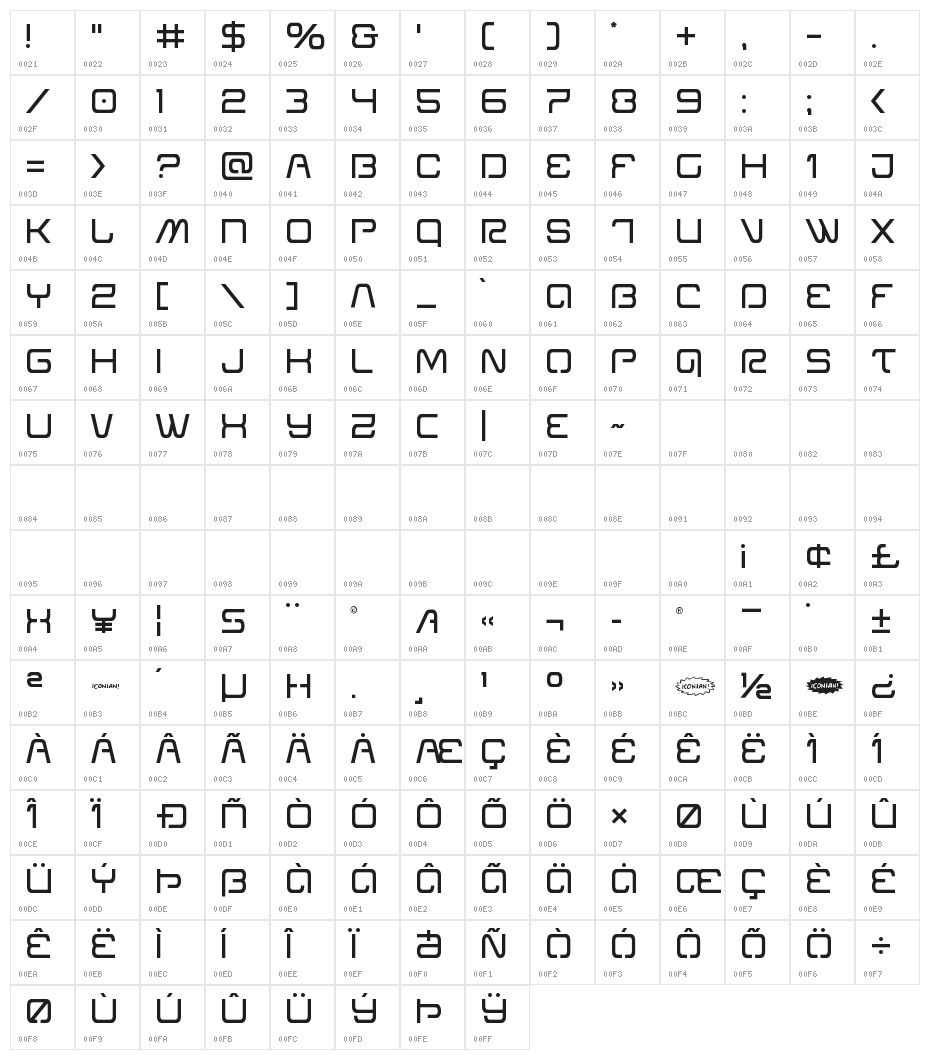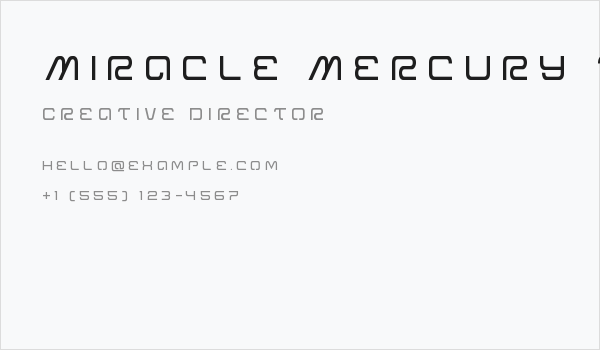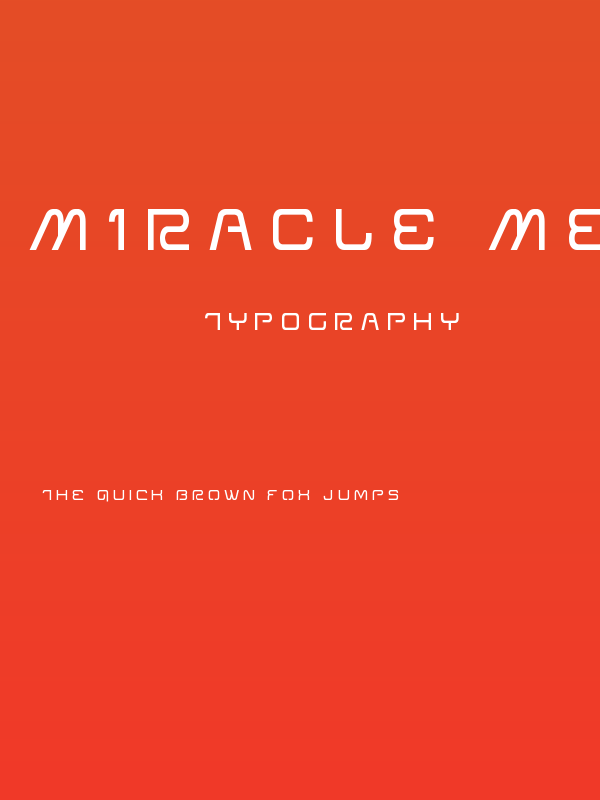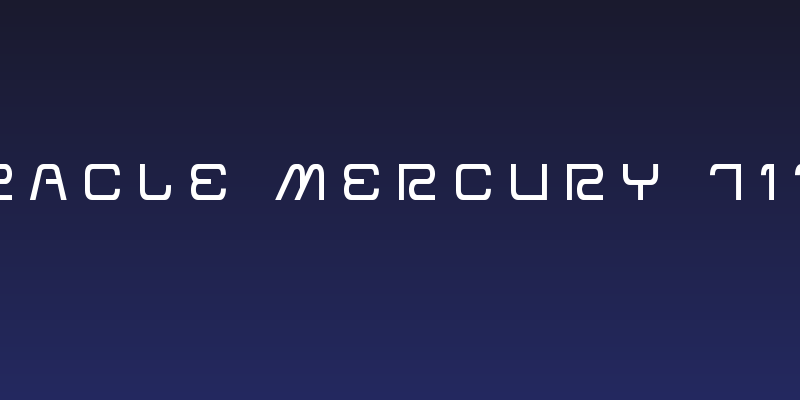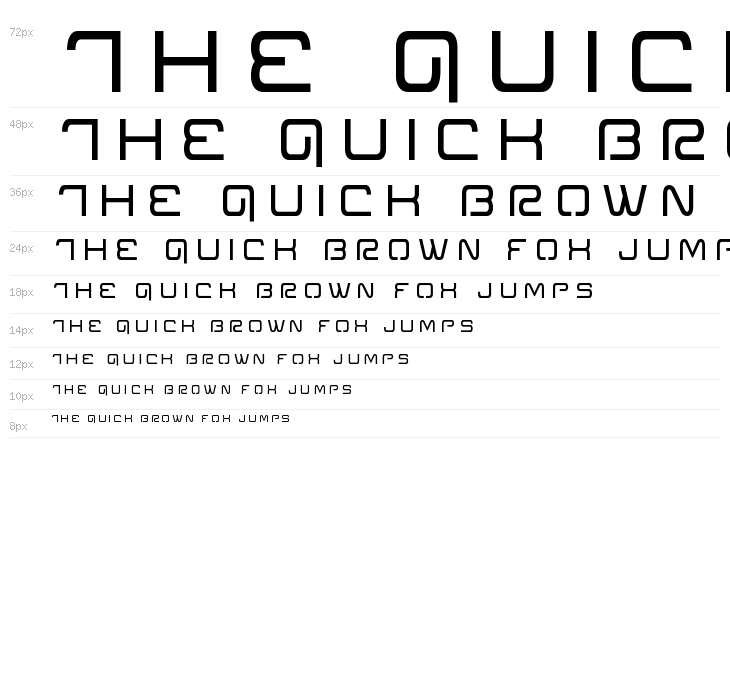
Miracle Mercury Title Font
This font features a modern, geometric design with a futuristic appeal. The characters are constructed with clean, straight lines and rounded corners, giving it a sleek and contemporary look. The uppercase and lowercase letters maintain a consistent style, with a uniform height that enhances readability. The numerals and special characters follow the same design principles, ensuring a cohesive appearance across all glyphs. The font's unique style makes it suitable for projects that require a modern and innovative touch.
| Use Case | Headlines, Logos, Digital Interfaces |
| Proposed Projects | Ideal for technology branding, sci-fi themed projects, modern advertising, and digital interfaces. |